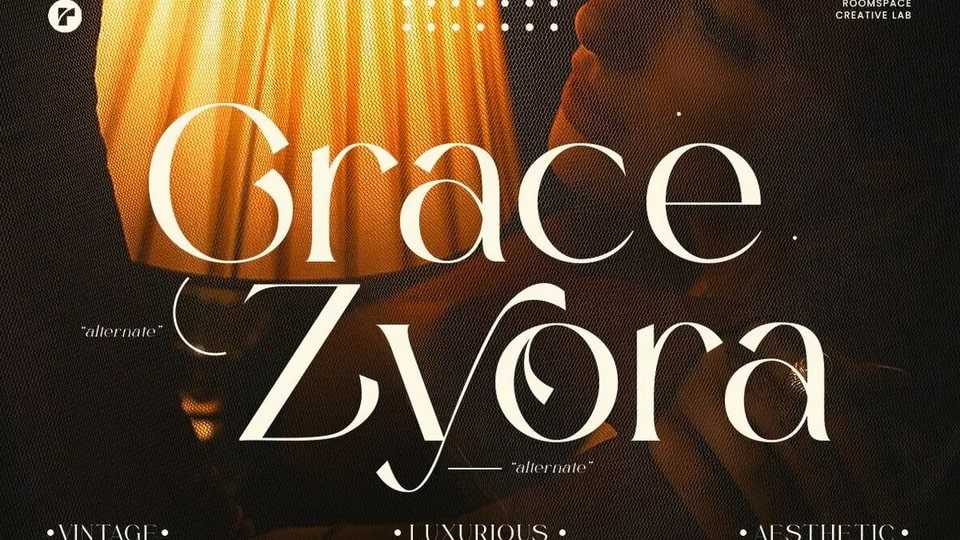
Download Grace Zyora font, inspired by the perfect blend of vintage sophistication and modern edge. This typeface was made to shine in luxury branding, editorial layouts, and bold logo designs.